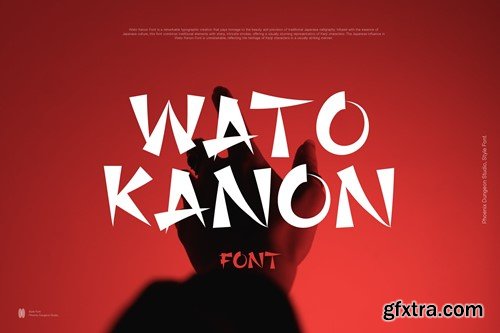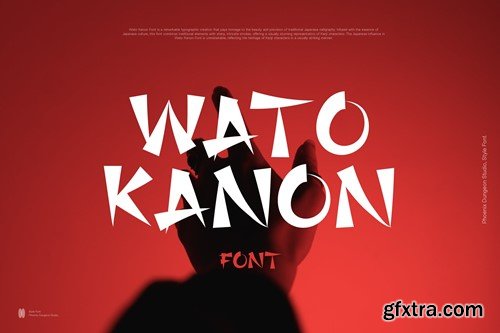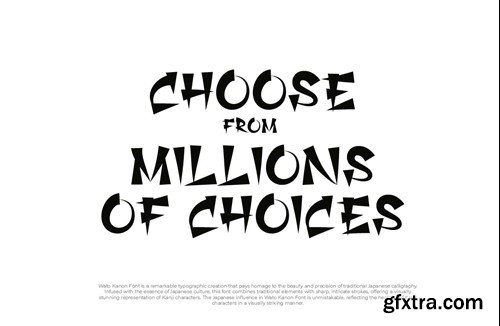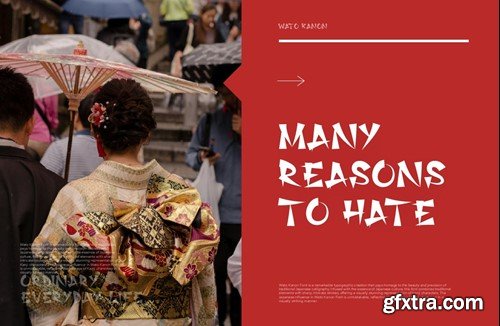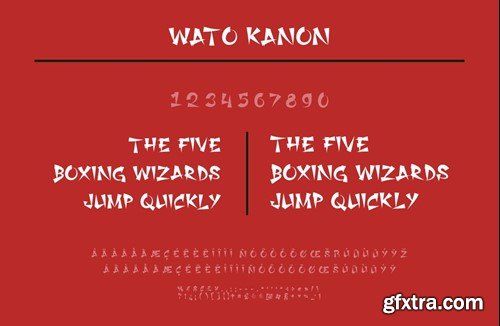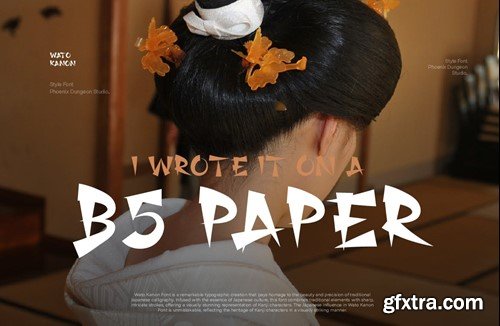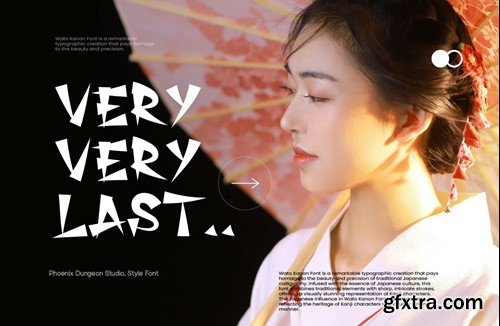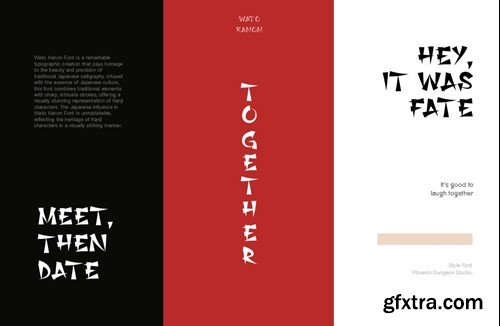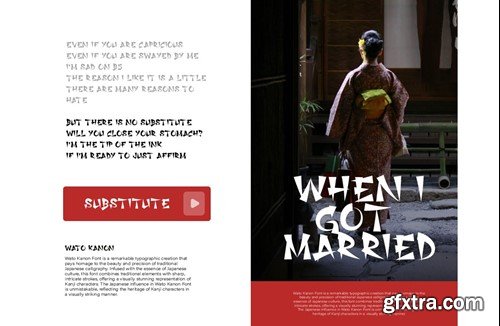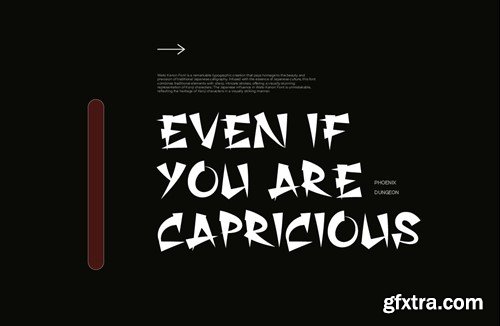
瓦托· kanon 字体 LK33BG6
Wato Kanon Font
Wato Kanon Font is a remarkable typographic creation that pays homage to the beauty and precision of traditional Japanese calligraphy. Infused with the essence of Japanese culture, this font combines traditional elements with sharp, intricate strokes, offering a visually stunning representation of Kanji characters. The Japanese influence in Wato Kanon Font is unmistakable, reflecting the heritage of Kanji characters in a visually striking manner. What’s in the package : Thank you